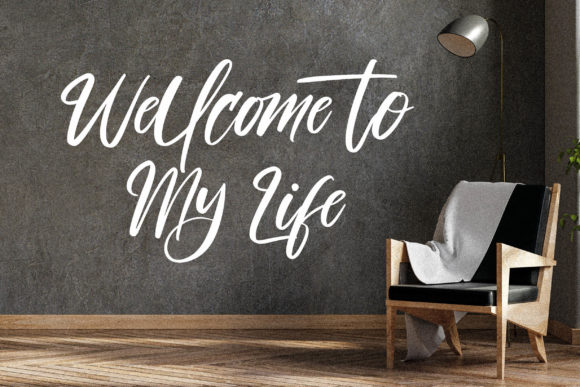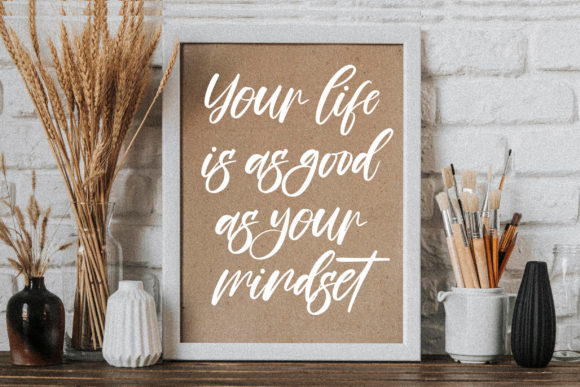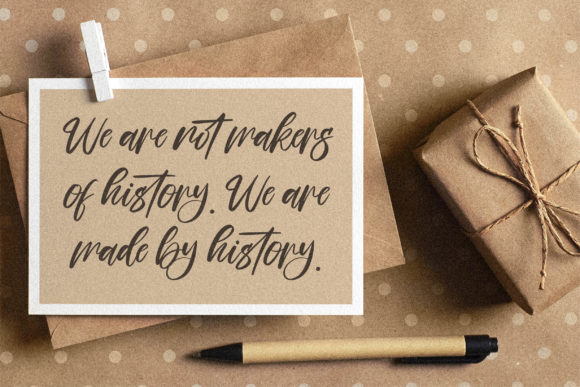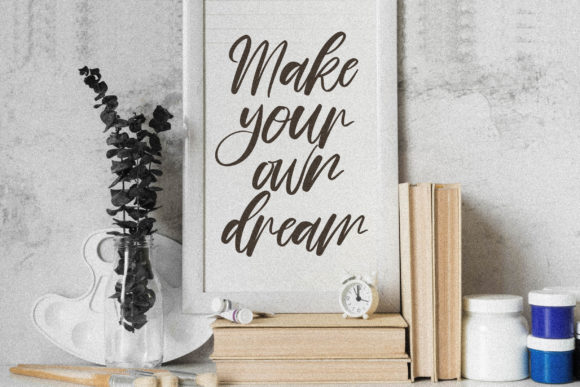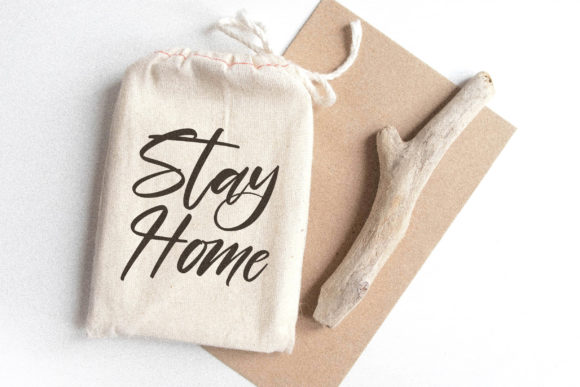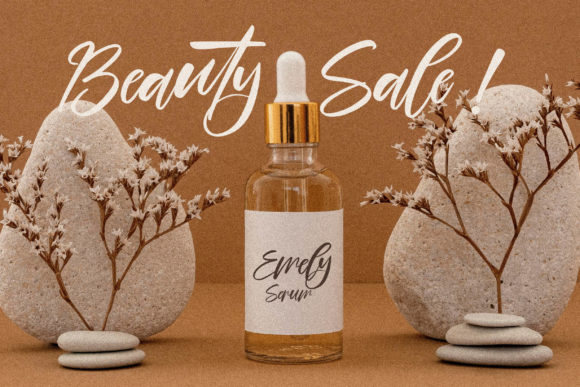
About Yellowbird Font
Yellowbird is a lovely script font featuring charming, playful characters that seem to dance along the baseline. Add this font to your most creative ideas, and notice how it makes them stand out! Yellowbird is PUA encoded which means you can access all of the beautiful glyphs and swashes with ease!